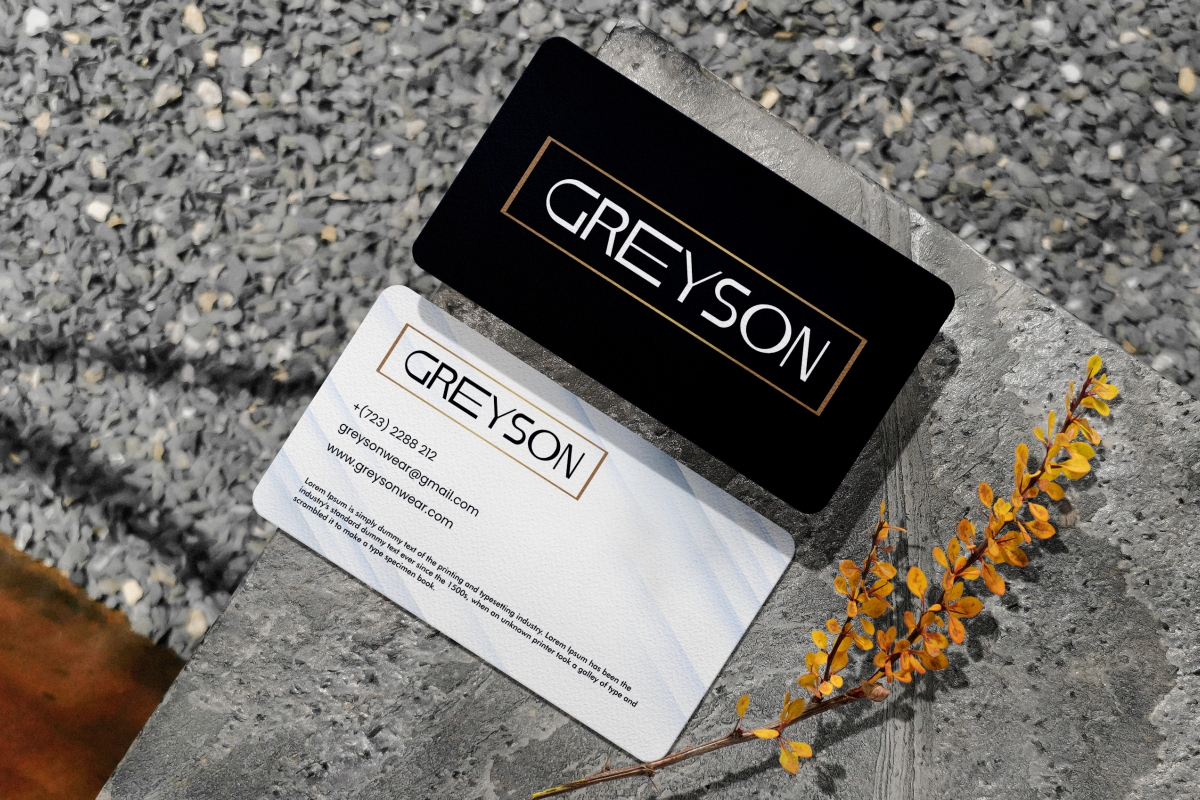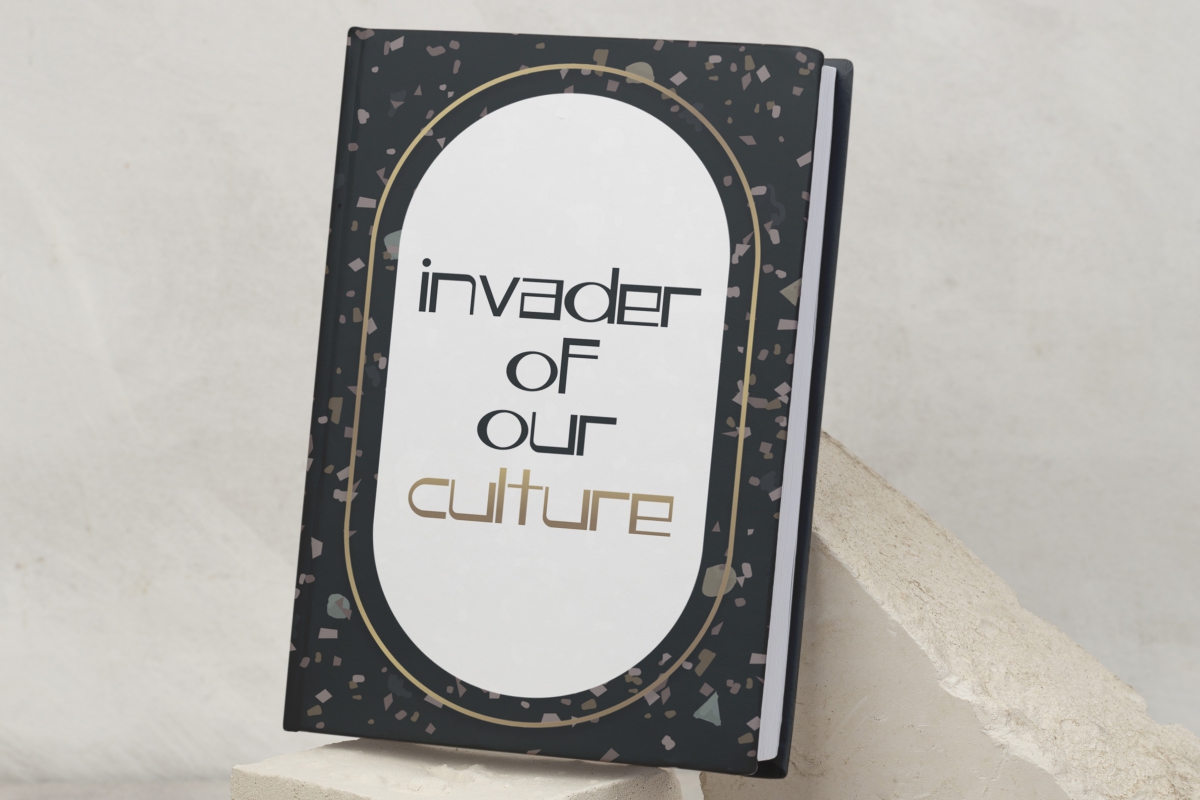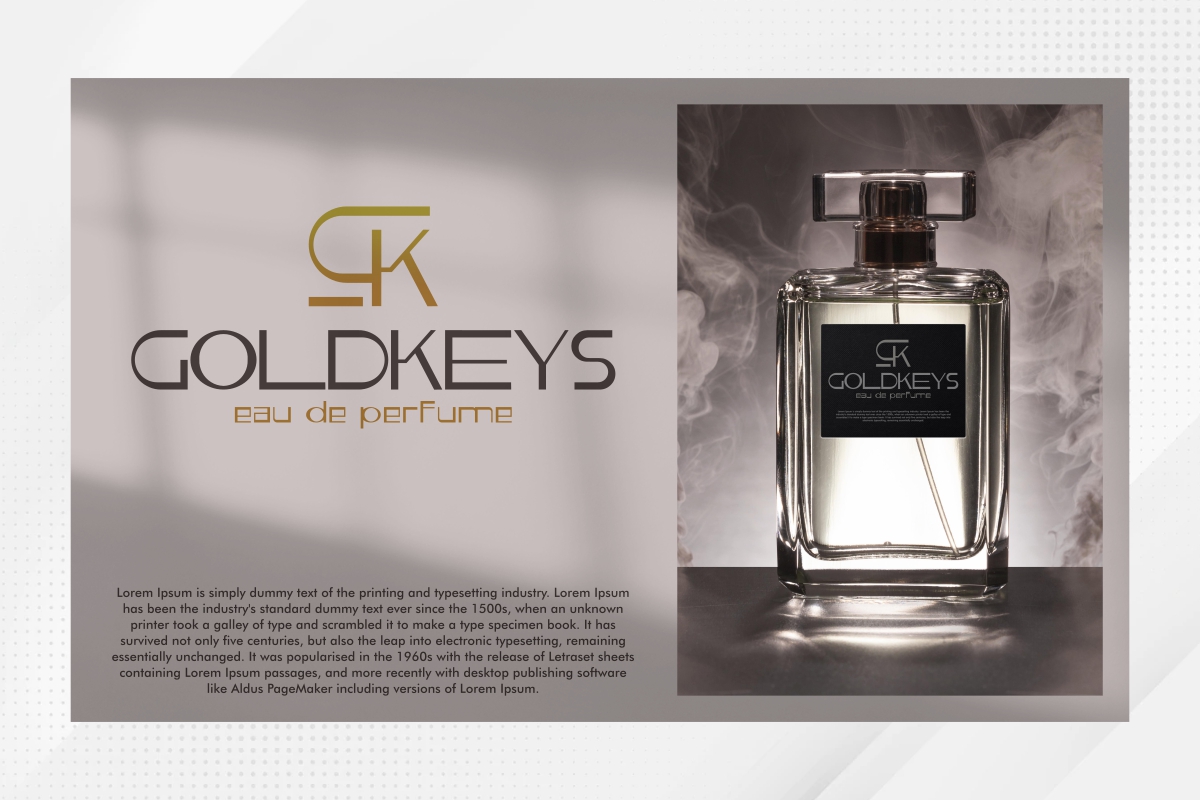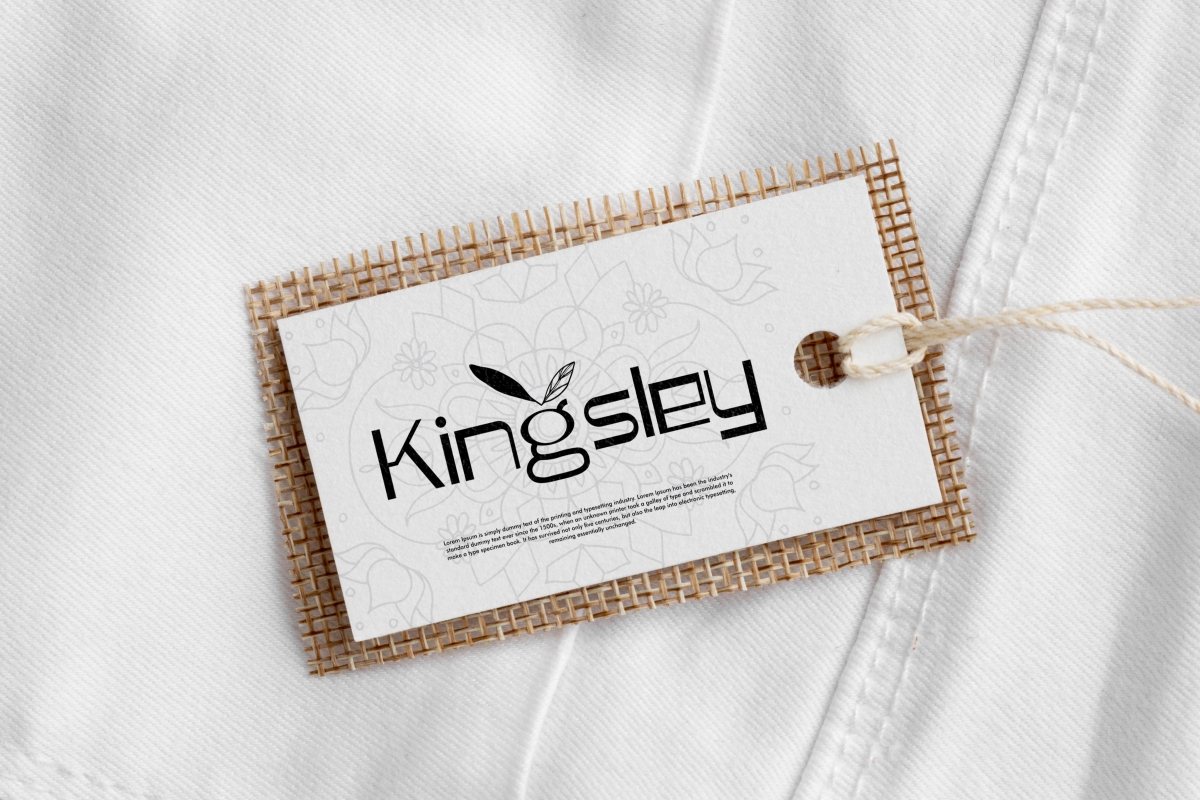
Halter Breaks Font
Halter Breaks Display Font
It’s a uniquely sans display font. This font has bold characters with long lines and large font sizes. Use these fonts to support your designs, such as business card, signage, brand logo, label, custom design, product packaging, poster, web page, quotes and more!